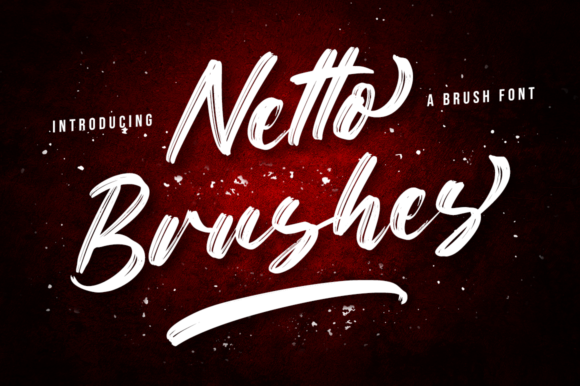
Welcome to the realm of Netto Brushes, where elegance and boldness harmoniously blend to create a font that captivates the eyes and captivates the soul. This meticulously crafted handwritten font, birthed from the creative genius of FatmaStudio, is poised to elevate your event website to unprecedented heights of visual allure.
Immerse yourself in the world of Netto Brushes and let your imagination run wild. With its striking strokes and dynamic character, this font is tailor-made to make a lasting impression. The strong and confident aura it exudes radiates professionalism and invites your audience to embark on an unforgettable journey through your website.
Picture your event website adorned with the enchanting allure of Netto Brushes. Its nostalgic charm transports visitors to a bygone era, evoking a sense of timeless elegance that sets your website apart from the mundane. Each letter, meticulously crafted with passion and precision, dances across the screen, captivating attention and leaving an indelible mark on the hearts of your audience.
Imagine the headlines on your event website, rendered in the bold and commanding presence of Netto Brushes. They become more than mere words; they transform into visual masterpieces that demand attention and ignite curiosity. Your event details, adorned with this exquisite font, take on a life of their own, inviting visitors to delve deeper into the wonders that await them.
Netto Brushes is not merely a font; it is a gateway to boundless creativity. Unleash its potential to unveil the unique charm of your event website. Let it guide you towards an unforgettable online experience that leaves attendees yearning for more. As they navigate through your website, the seamless flow of Netto Brushes will guide them flawlessly, enhancing their engagement and leaving them with a lasting impression of sophistication and elegance.
So, embrace the allure of Netto Brushes and watch your event website blossom into a captivating masterpiece. With each stroke of this extraordinary font, you'll leave an indelible mark on the hearts of your audience, creating an immersive experience that they will cherish long after the final curtain falls.